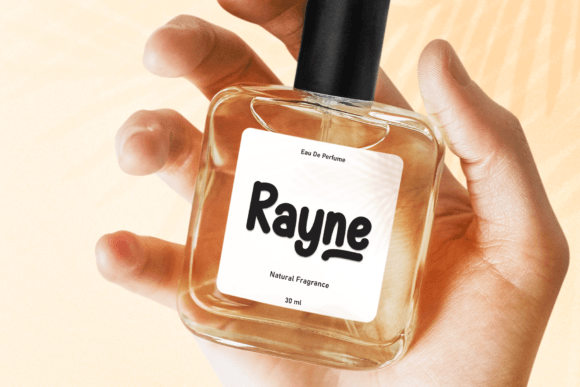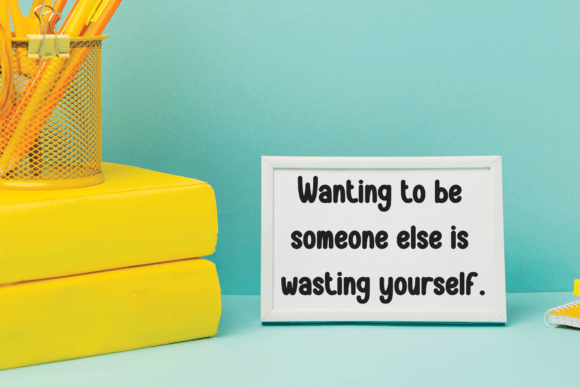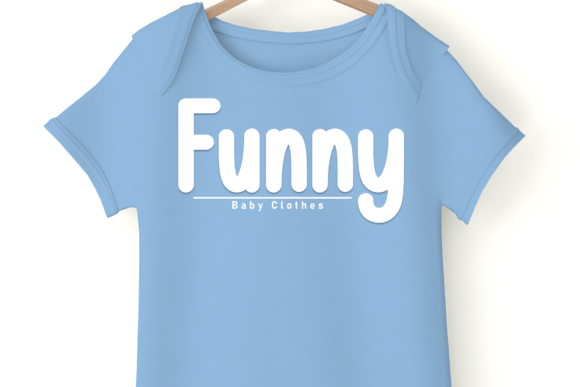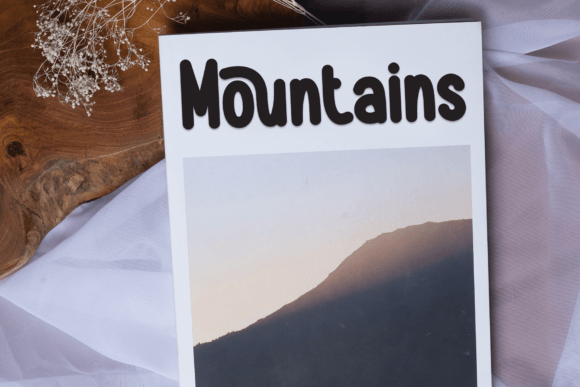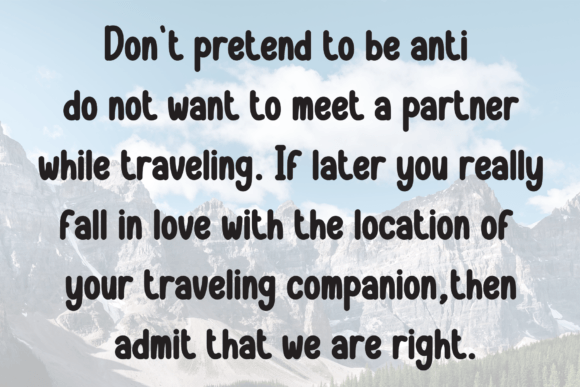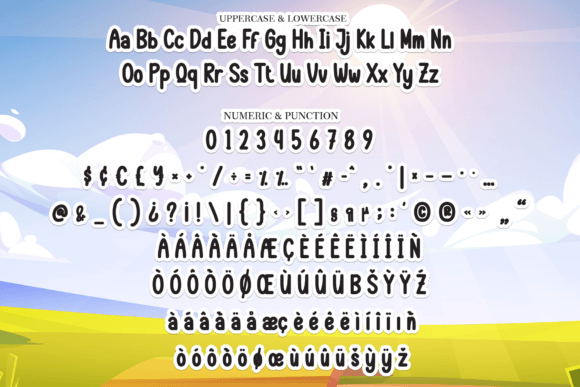
Introducing Daylight Font: Elevate Your Designs with Modern Minimalism
In the world of typography, fonts play a crucial role in shaping the visual identity of a design project. For designers and crafters seeking a modern and minimalist aesthetic, Daylight Font is an excellent choice. This display font boasts a clean and versatile design, making it perfect for a wide range of applications, from branding and editorial layouts to web design, packaging, and signage.
What Makes Daylight Font Stand Out?
Daylight Font’s modern and minimalist design is its most striking feature. The font’s clean lines, subtle curves, and carefully crafted letterforms create a visually appealing and sophisticated look. Its versatility is another significant advantage, allowing designers to use it across various design projects. Whether you’re working on a luxury brand’s logo, a fashion magazine’s editorial layout, or a website’s header, Daylight Font adapts seamlessly.
Key Features of Daylight Font
- Modern and Minimalist Design: Daylight Font’s sleek and contemporary design makes it perfect for designers seeking a clean and sophisticated look.
- Versatility: The font’s adaptability makes it suitable for a wide range of design applications, from print to digital.
- Display Font: Daylight Font is specifically designed as a display font, making it ideal for headlines, titles, and other attention-grabbing elements.
- Easy to Read: Despite its minimalist design, Daylight Font remains highly legible, ensuring that your message is conveyed clearly.
Design Applications for Daylight Font
Daylight Font’s versatility makes it an excellent choice for various design projects. Here are some of the ways you can use this font:
- Branding: Create a lasting impression with Daylight Font’s modern and sophisticated design. Use it for logos, business cards, and letterheads to establish a cohesive brand identity.
- Editorial Layouts: Add a touch of elegance to your magazine or newspaper layouts with Daylight Font. Its clean design makes it perfect for headlines, titles, and other attention-grabbing elements.
- Web Design: Use Daylight Font to create stunning website headers, titles, and other display elements. Its modern design will elevate your website’s visual appeal and provide a seamless user experience.
- Packaging: Make your product stand out with Daylight Font’s sleek and contemporary design. Use it for labels, packaging, and other promotional materials.
- Signage: Create eye-catching signage with Daylight Font. Its high legibility and modern design make it perfect for directional signs, banners, and other display elements.
Tips for Using Daylight Font Effectively
To get the most out of Daylight Font, consider the following tips:
- Pair it with Other Fonts: Combine Daylight Font with other fonts to create a unique and visually appealing typography. Experiment with different font combinations to find the perfect balance.
- Experiment with Colors: Daylight Font’s clean design makes it versatile for various color schemes. Try pairing it with bold colors or subtle gradients to create a stunning visual effect.
- Pay Attention to Line Spacing: Ensure that your text is easy to read by adjusting the line spacing. Daylight Font’s clean design makes it essential to maintain a clear hierarchy of information.
Daylight Font is an excellent choice for designers and crafters seeking a modern and minimalist aesthetic. Its versatility, clean design, and high legibility make it perfect for a wide range of design applications. By incorporating Daylight Font into your design projects, you’ll elevate your visual identity and create stunning designs that capture attention.